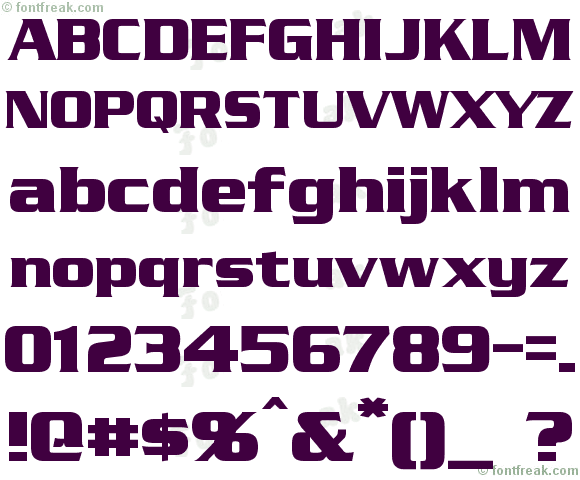
Straczynski
About Straczynski
The Straczynski font, designed by Neale Davidson in 2011, is a unique display typeface that marries modern aesthetics with a distinct personality. This font exemplifies a contemporary sans-serif style, characterized by its bold stroke weight and strong geometric forms. The clean lines and uniform spacing provide excellent legibility, making it a versatile choice for a variety of design projects. The visual contrast within the characters creates an engaging visual impact, while the subtle decorative elements add a touch of flair without overwhelming the overall design.
Straczynski is an ideal choice for several specific use cases. Its bold presence makes it perfect for eye-catching movie posters that demand attention and convey a sense of drama. Additionally, it works beautifully for restaurant menus, where clarity and style are essential for enticing patrons. Graphic designers can utilize this font for branding projects, giving logos a modern and memorable look. Furthermore, it is suitable for promotional materials, such as flyers and brochures, that aim to communicate information effectively while maintaining an appealing aesthetic. Small business owners looking to create a strong visual identity will find Straczynski to be a valuable asset.
The target audience for the Straczynski font includes graphic designers, content creators, and small business owners who seek fresh, impactful typography. This font stands out due to its ability to blend contemporary design with practicality, making it a go-to choice for projects that require both style and functionality. With the Straczynski font free download available, it’s easier than ever for creatives to incorporate this striking typeface into their work, enhancing their projects with a bold and modern look that captivates and engages audiences.